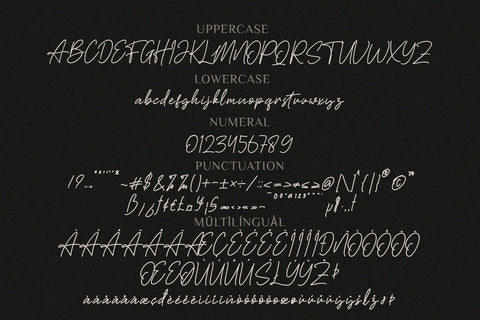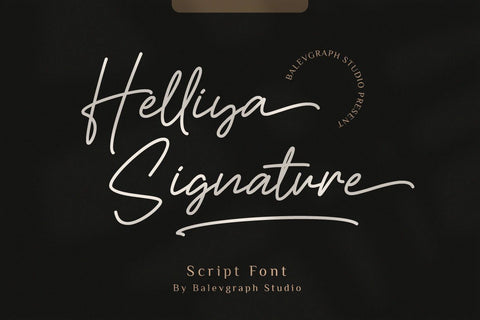
Helliya Signature Font
Helliya Signature is a lovely and timeless handwritten font. It is the best choice for creating eye catching logos, branding and quotes. Every letter has a unique and beautiful touch, which will make your design come alive!
- Uppercase, Lowercase, Numerals & Punctuations
- Ligature & Alternate
- Multilingual support